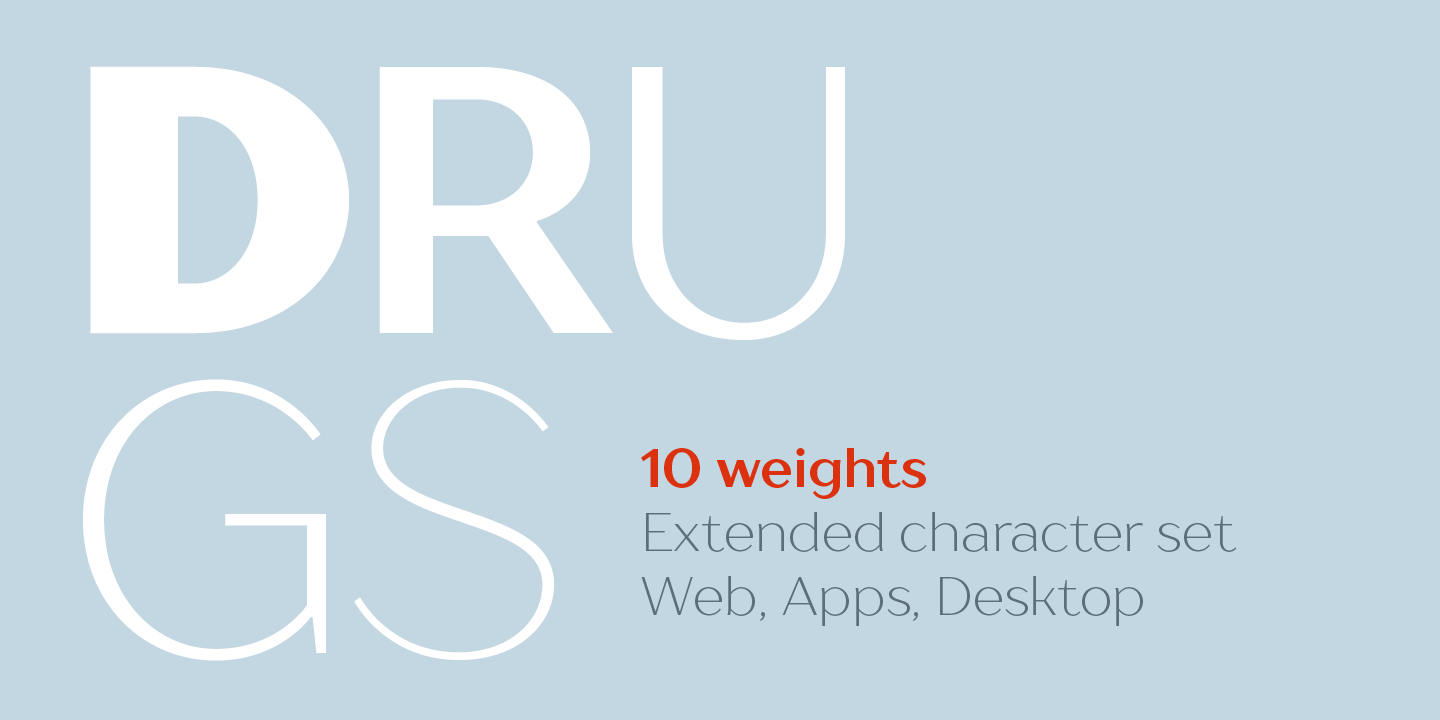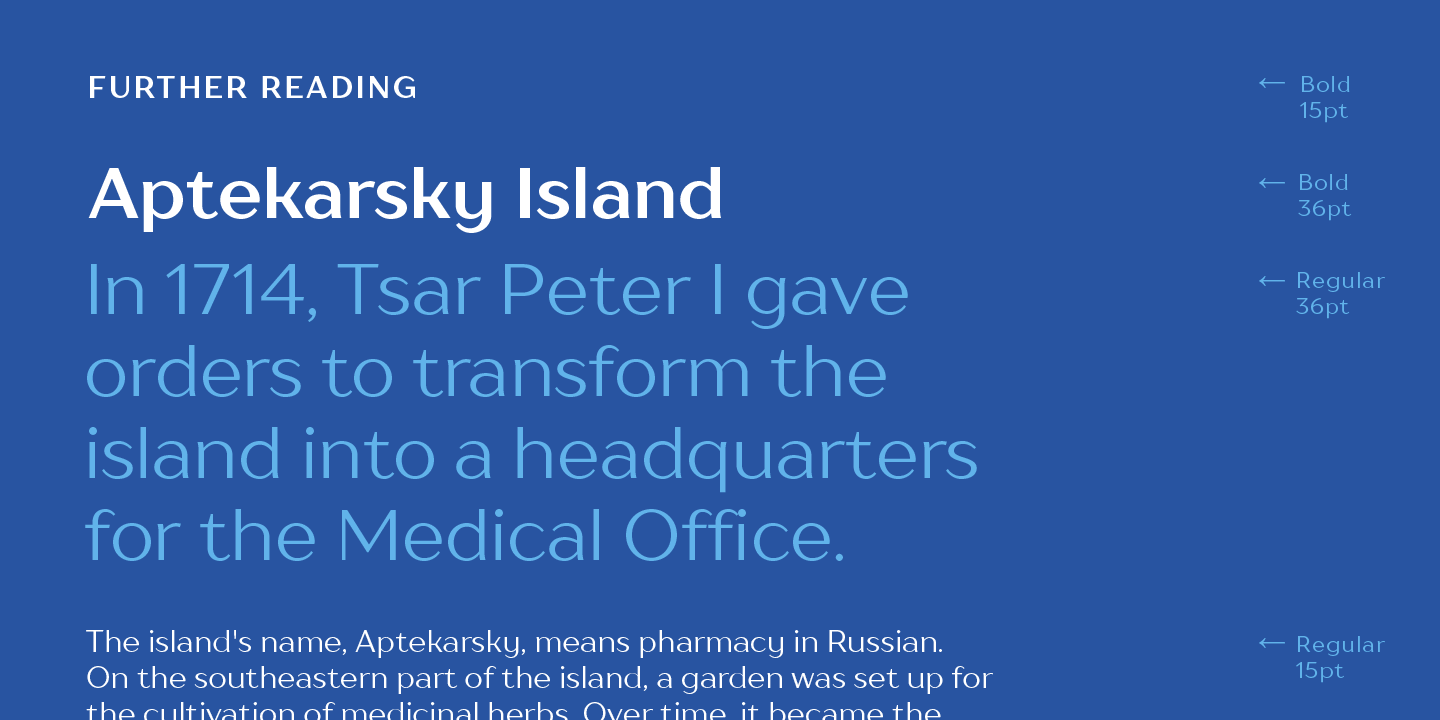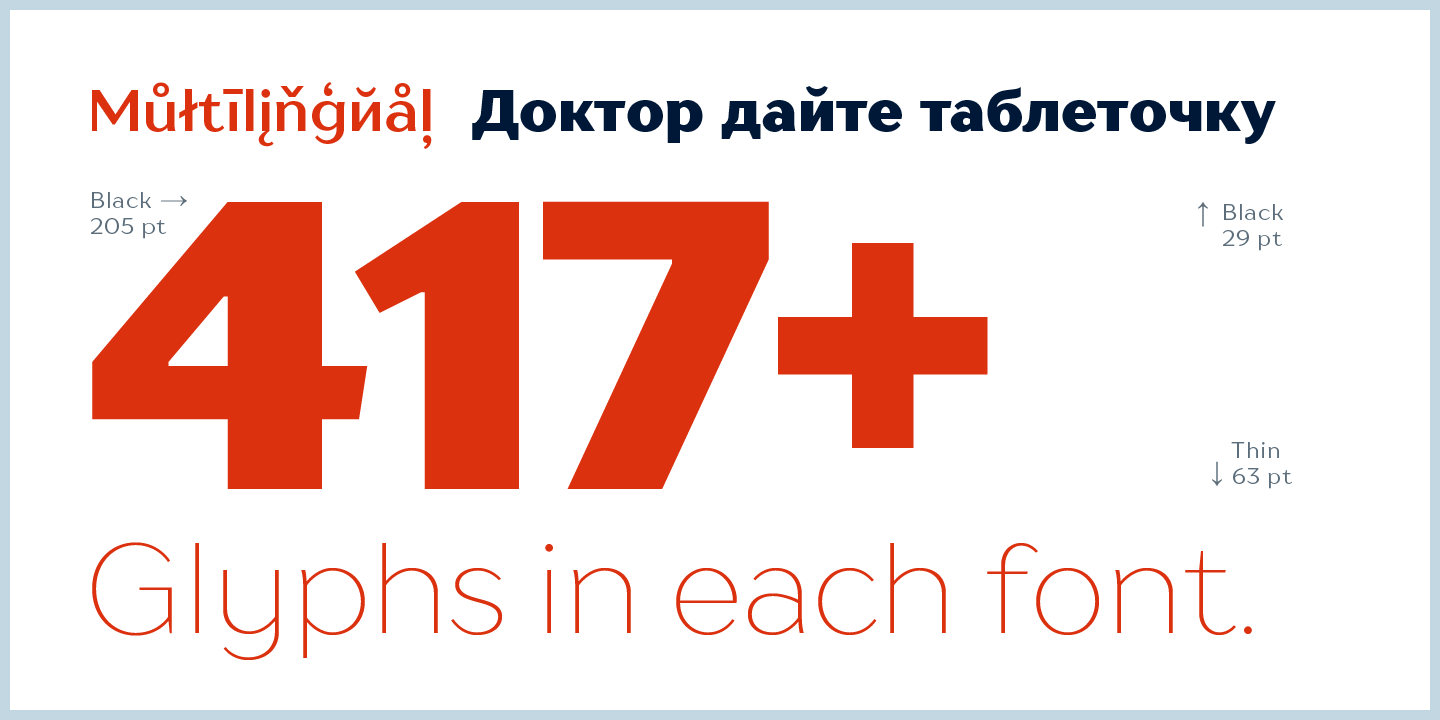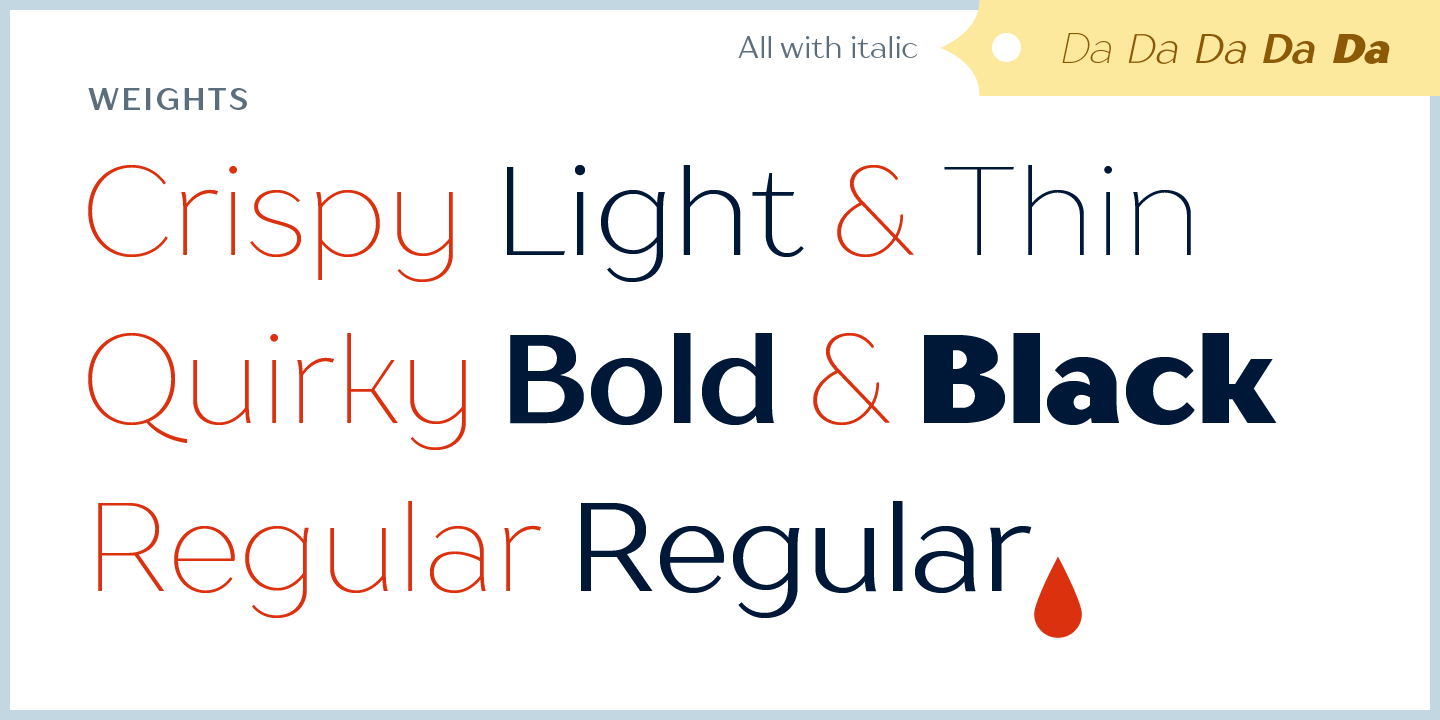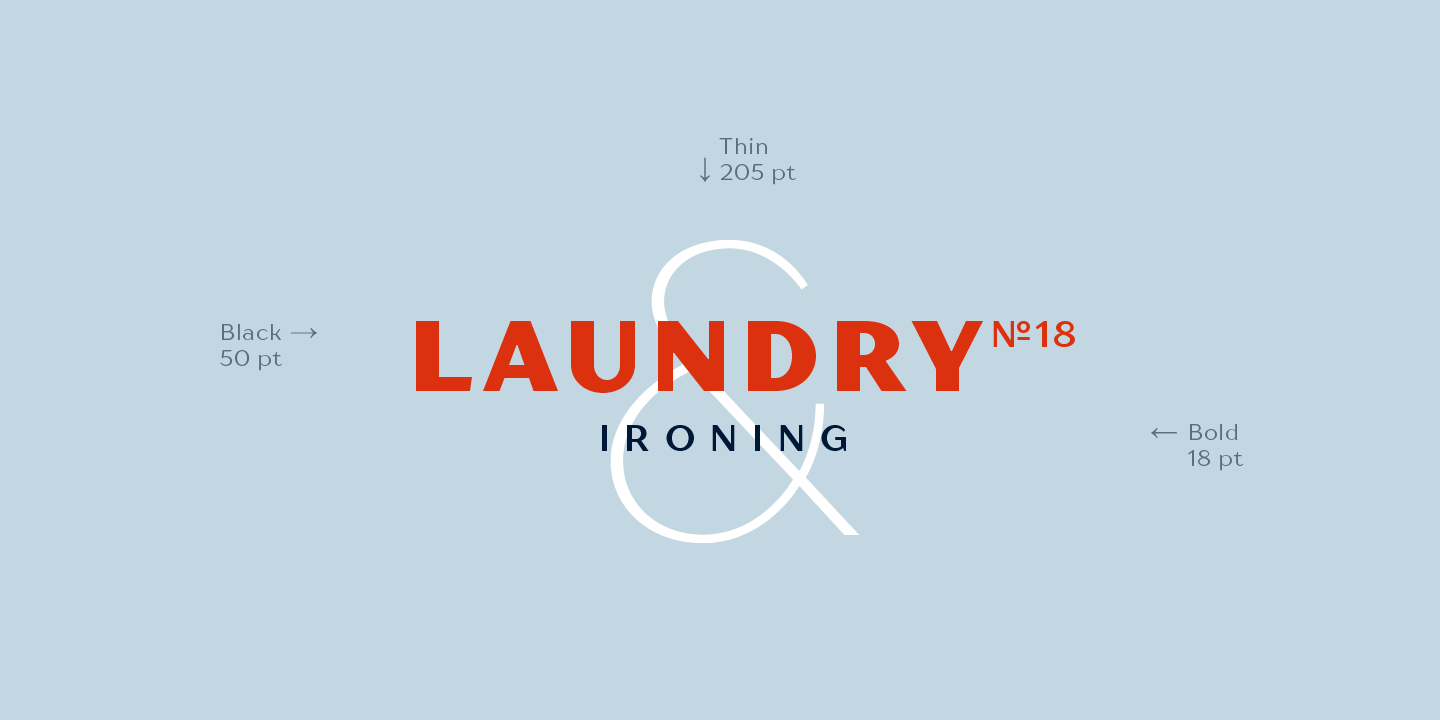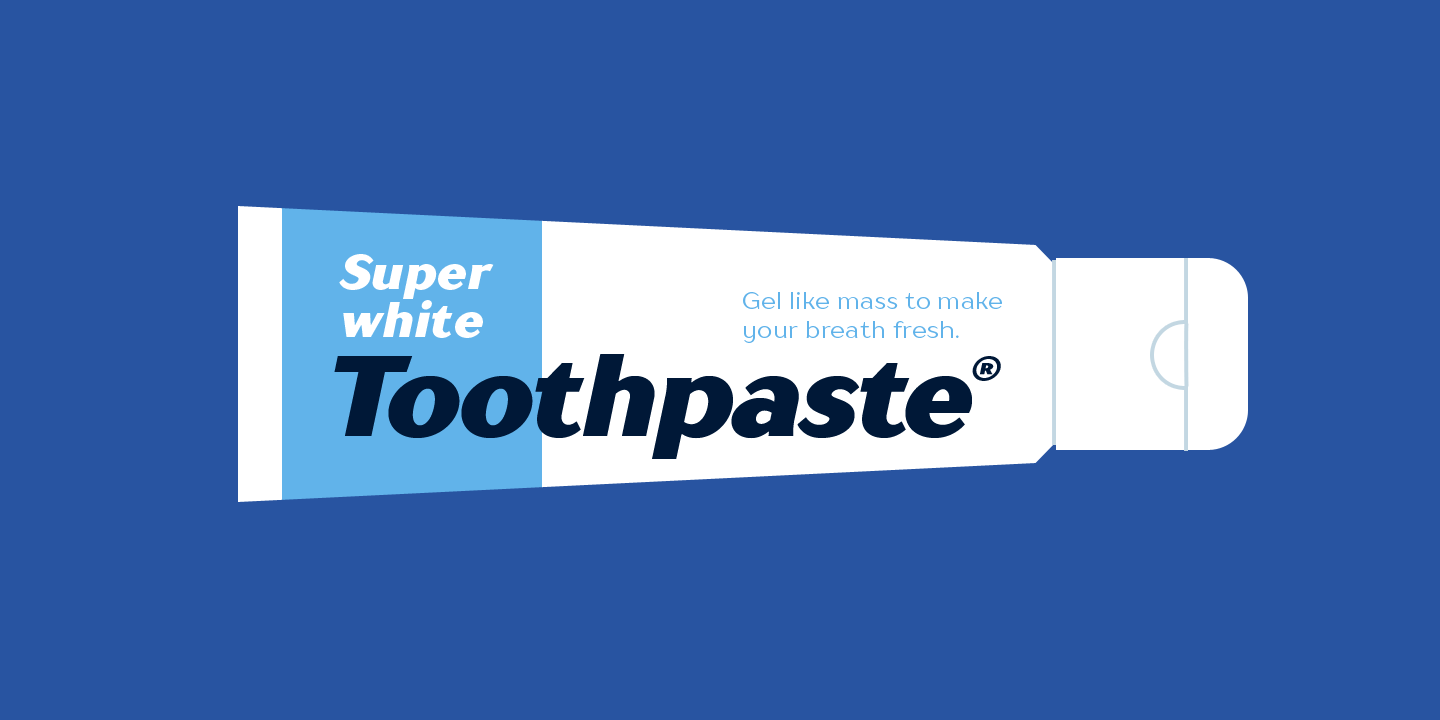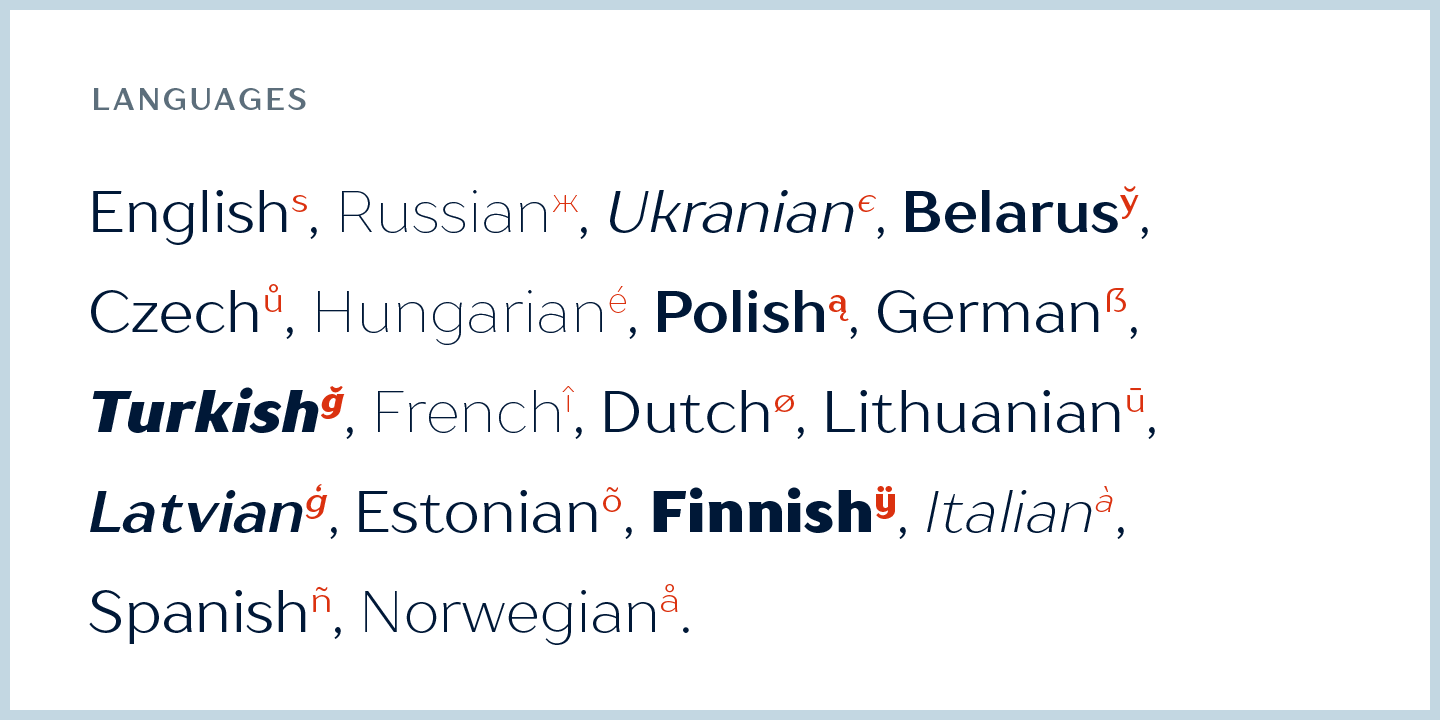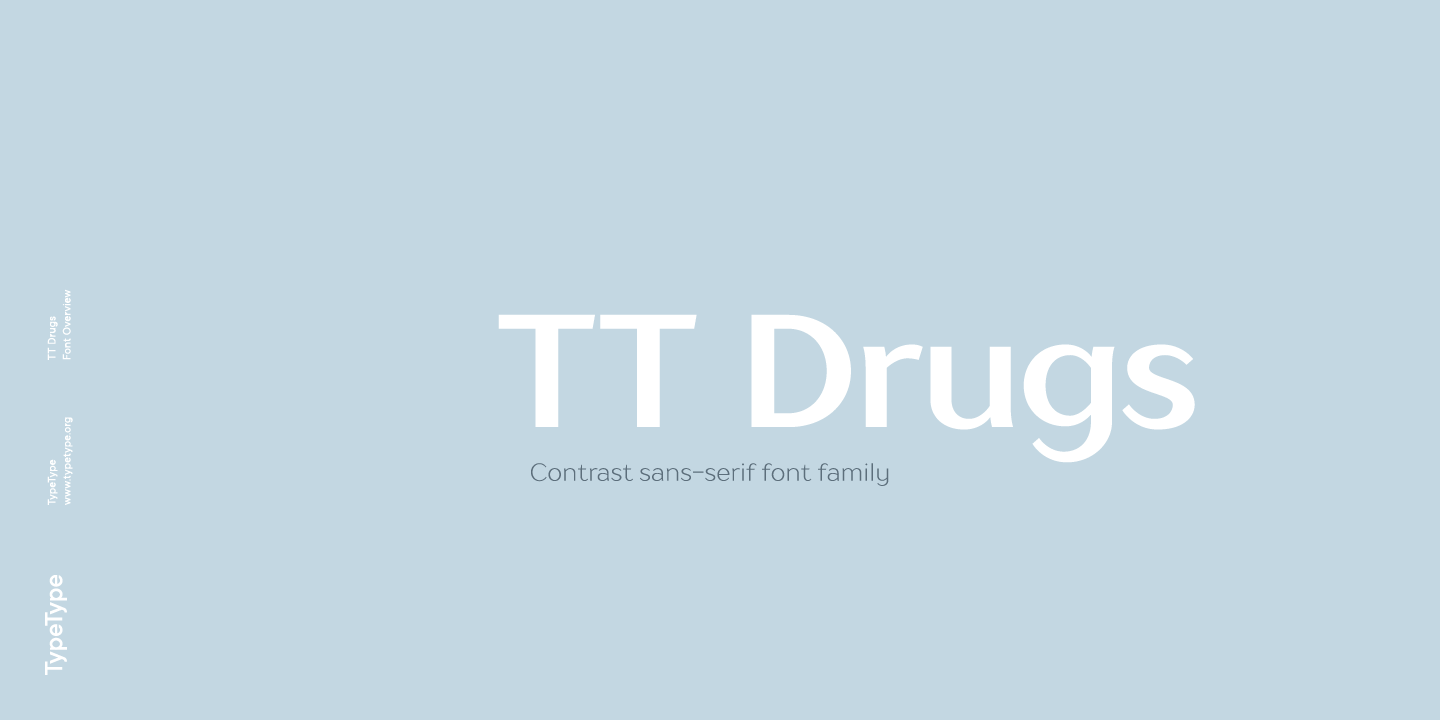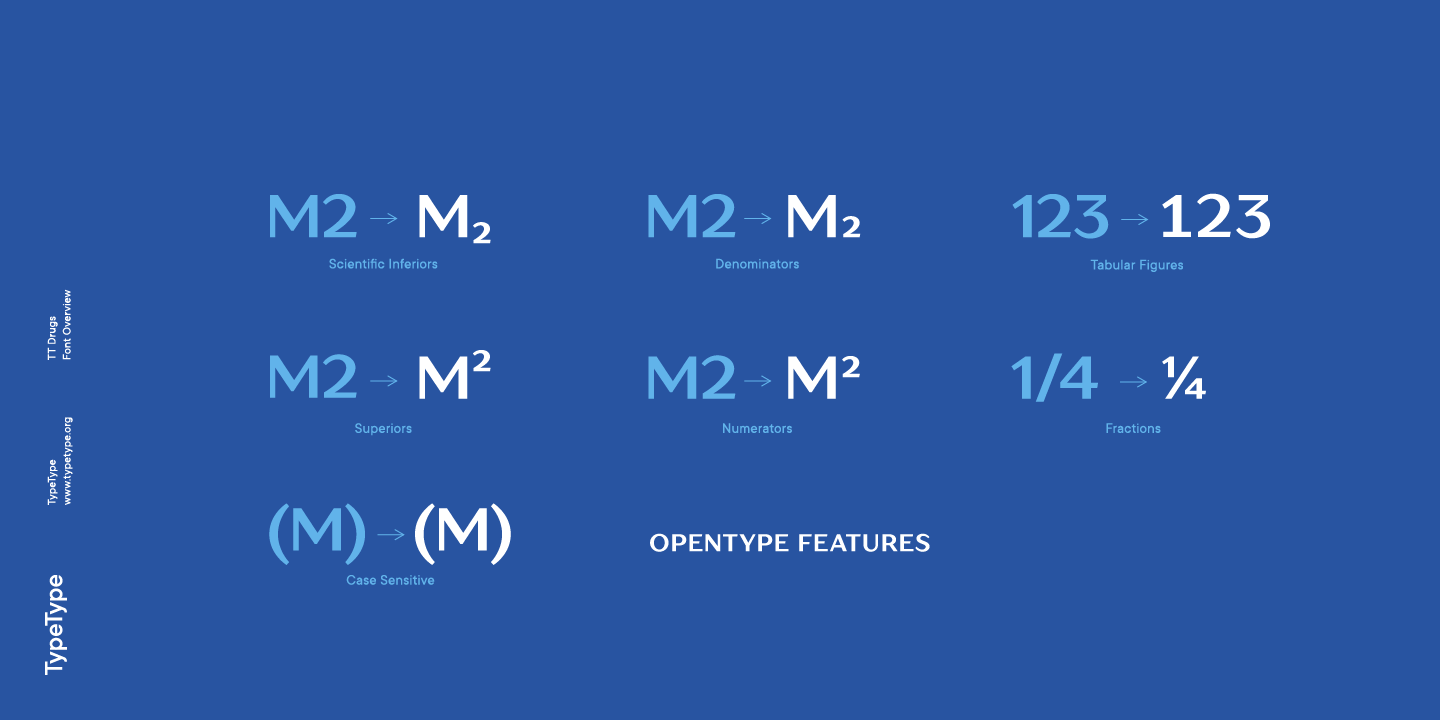
TT Drugs v. 1-010
Fontfamily Drugs — fonts that are specifically designed for the pharmaceutical industry and for household chemicals. Than to make a text layout for package of any medicine, toothpaste or laundry detergent? The answer is — Drugs. Fontfamily has a range from thin to black font and can be used on any surface: paper, cardboard, metal, glass and others.
Scope: logotypes, titles, text blocks, pharmaceutical products, medicines, laundry detergent, household chemicals, vitamins, packaging, signage, events and exhibitions, catalogs and magazines, television advertising, small size printing.
Optimized for the websites, mobile applications, and printing materials.